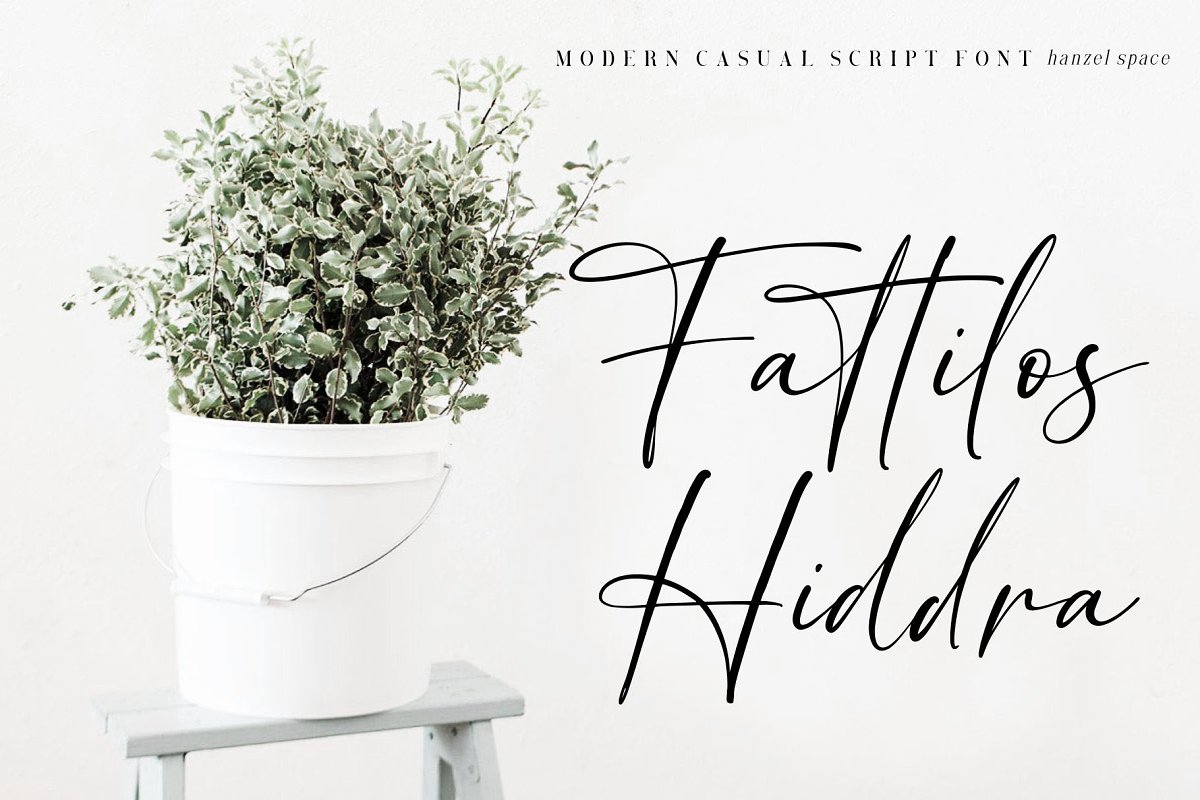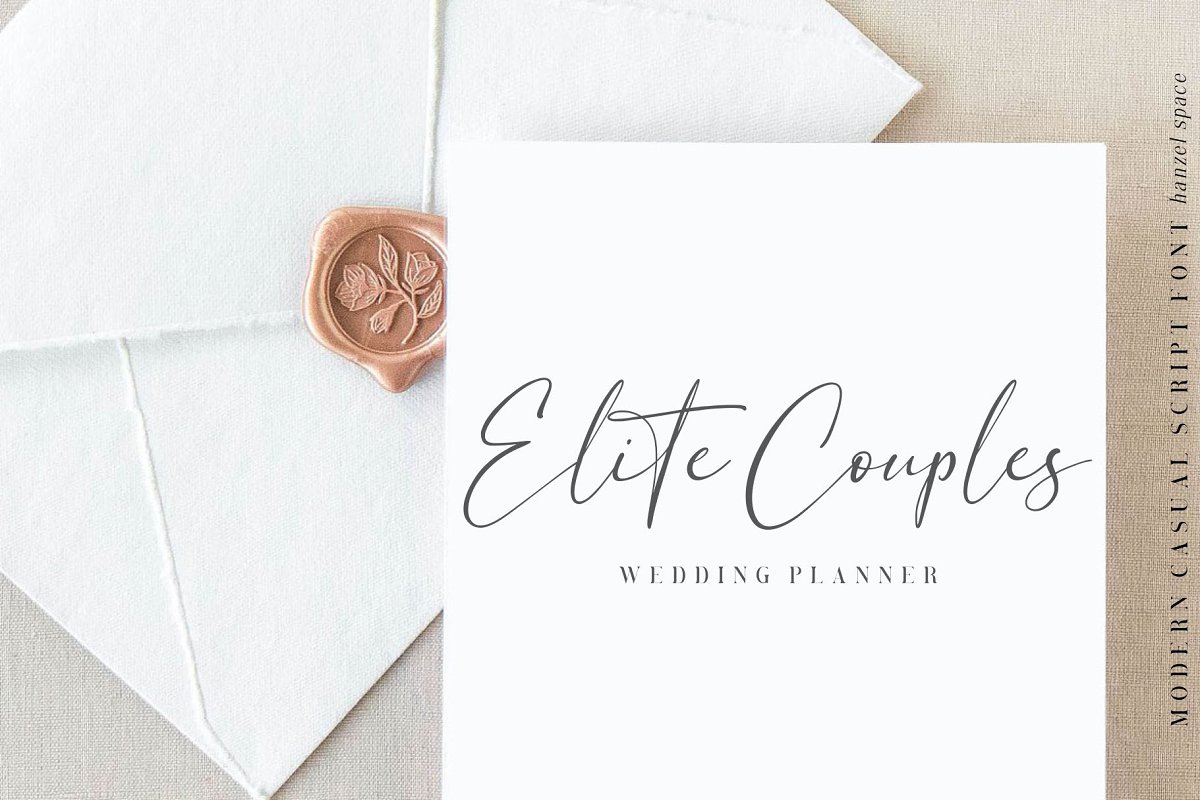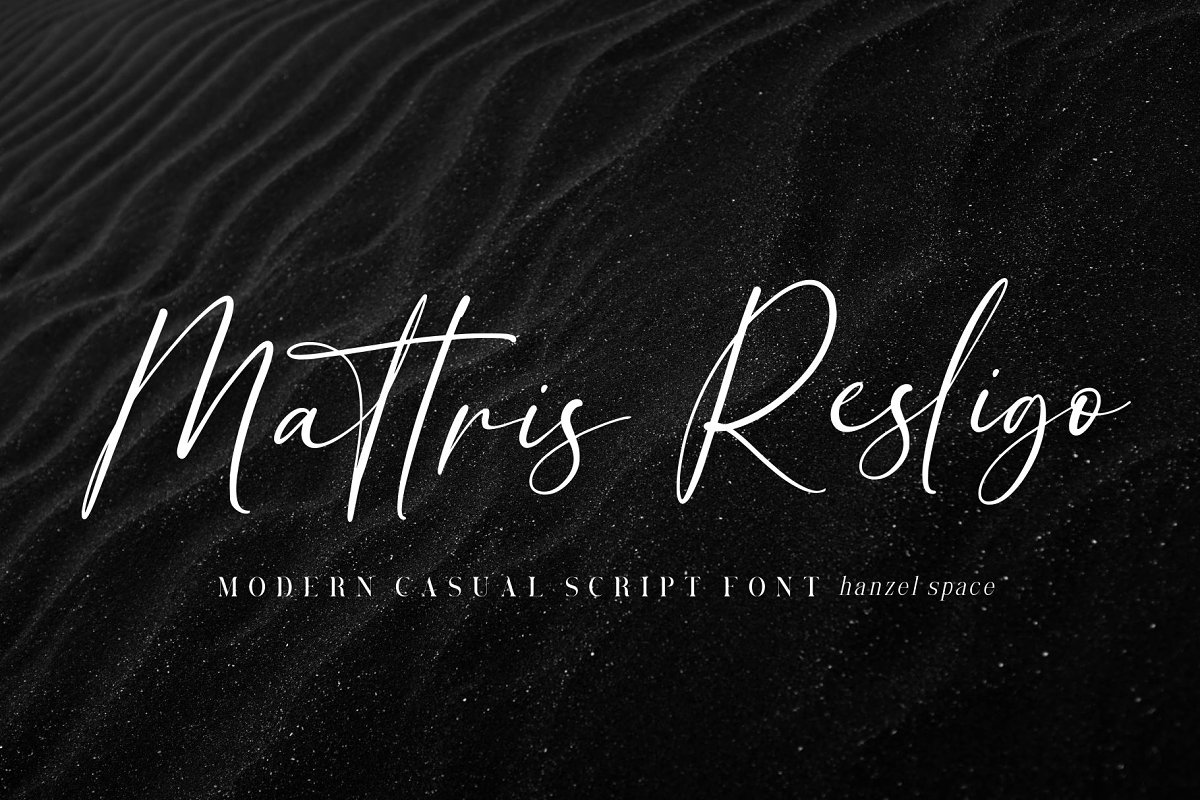
About the Breattogis Modern Script Font
Breattogis modern calligraphy font with contemporary, sophisticated accents, It is perfect for branding, wedding invites, tagline, cards, maybe for label and logo, Breattogis includes full set of gorgeous uppercase and lowercase letters, numerals, a large range of punctuation and ligatures, It expresses beauty of handwriting, What you get, darling?You will get:Breattogis TTFBreattogis OTFBreattogis WOFFIn order to use the beautiful ligatures, you need a program that supports OpenType features such as Adobe Illustrator CS, Adobe Photoshop CC, Adobe Indesign and Corel Draw